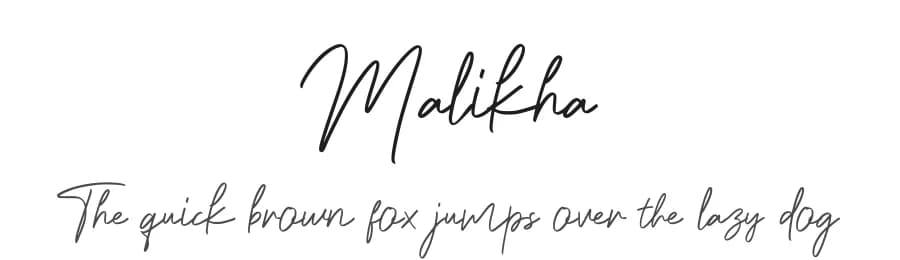
About Malikha Font
Malikha ships with 3 OpenType features you can switch on in apps that support them (Illustrator, InDesign, Affinity, Figma, CSS font-feature-settings).
Malikha Font is a script font that shines as a display or heading face. Pair it with a clean sans-serif or serif font for body text β the contrast creates a clear hierarchy while the two styles stay balanced and easy to read.
Malikha Font